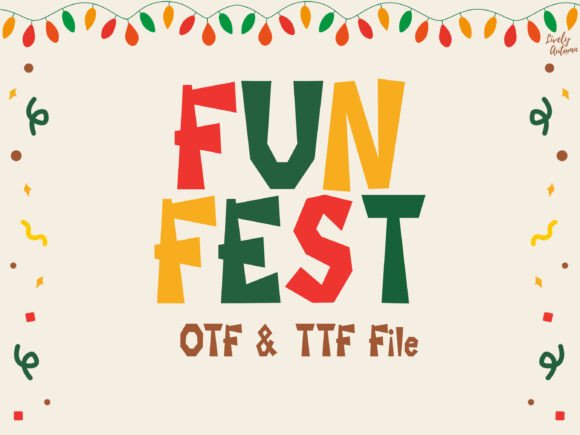
Introducing Funfest Font: The Ultimate Playful Typeface for Your Creative Projects
Are you tired of using the same old boring fonts for your personal and professional projects? Look no further! Funfest Font is here to add a playful touch to your designs. This cartoon typeface with sharp edges is perfect for creating fun and engaging visuals that will capture the attention of your audience. In this article, we’ll explore the features and benefits of Funfest Font, and how you can use it to take your designs to the next level.
What is Funfest Font?
Funfest Font is a unique and playful typeface that is designed to add a touch of whimsy to your designs. Its sharp edges give it a bold and edgy look that’s perfect for creating eye-catching visuals. Whether you’re working on a personal project or a professional one, Funfest Font is the perfect choice for designers and crafters who want to add some personality to their work.
Features of Funfest Font
So, what makes Funfest Font so special? Here are some of its key features:
- Playful and cartoonish design: Funfest Font has a fun and playful design that’s perfect for creating visuals that appeal to a younger audience.
- Sharp edges: The sharp edges of Funfest Font give it a bold and edgy look that’s perfect for creating eye-catching visuals.
- Versatile: Funfest Font is perfect for a wide range of projects, from invitations to posters, social media graphics, journals, and much more.
- Easily readable: Despite its playful design, Funfest Font is easily readable, making it perfect for body text and headlines.
Benefits of Using Funfest Font
So, why should you use Funfest Font for your projects? Here are some of the benefits of using this amazing typeface:
- Adds personality to your designs: Funfest Font adds a touch of personality to your designs, making them stand out from the crowd.
- Perfect for creative projects: Whether you’re working on a personal or professional project, Funfest Font is perfect for creative projects that require a playful touch.
- Increases engagement: The playful design of Funfest Font can help increase engagement with your audience, making them more likely to interact with your content.
Project Ideas Using Funfest Font
Funfest Font is perfect for a wide range of projects. Here are some ideas to get you started:
- Invitations: Use Funfest Font to create fun and playful invitations for parties, birthdays, and other celebrations.
- Posters: Create eye-catching posters for events, promotions, and products using Funfest Font.
- Social media graphics: Use Funfest Font to create engaging social media graphics that will capture the attention of your audience.
- Journals and planners: Add a playful touch to your journals and planners with Funfest Font.
In conclusion, Funfest Font is a playful and versatile typeface that’s perfect for designers and crafters who want to add a touch of personality to their projects. With its sharp edges and cartoonish design, Funfest Font is sure to capture the attention of your audience and make your designs stand out from the crowd. So why wait? Download Funfest Font today and start creating fun and engaging visuals for your personal and professional projects!